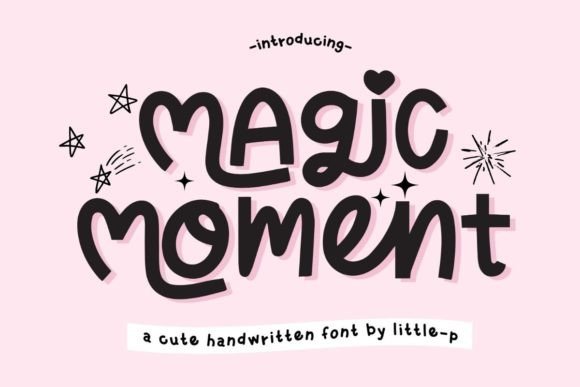
Step into a realm of captivating designs with "Magic Moment," the script font that dances across your screen like a summer breeze. Its handwritten cursive style, infused with a touch of modernity, evokes a sense of carefree playfulness and endless creativity. Dive into the wonders of "Magic Moment" and let your imagination soar.
With "Magic Moment," the possibilities are as boundless as your creative spirit. Craft trendy shirts that radiate your unique style, design eye-catching stickers that speak volumes, and create logos that leave an unforgettable impression. Engage your social media audience with captivating posts, each one infused with the charm of "Magic Moment". Let your imagination take center stage as you explore the depths of this extraordinary font.
Experience the beauty of "Magic Moment" as it transforms your designs into captivating masterpieces. Its unique character adds a touch of enchantment to every project, making it the perfect choice for capturing the essence of special moments and heartfelt expressions. Embrace the magic of "Magic Moment" and watch your creative visions come alive.
"Magic Moment" is more than just a font; it's an invitation to embark on a creative journey, where your imagination reigns supreme. Its charming design and endless versatility make it an essential tool for designers, crafters, and anyone seeking to add a touch of magic to their projects. Discover the endless possibilities that await you with "Magic Moment" and let your creativity shine brighter than ever before.
Don't miss out on the chance to elevate your designs with the enchanting allure of "Magic Moment." Embrace the power of this remarkable font and let your creations radiate with captivating charm. Immerse yourself in the world of "Magic Moment" and unlock the true potential of your creative vision.